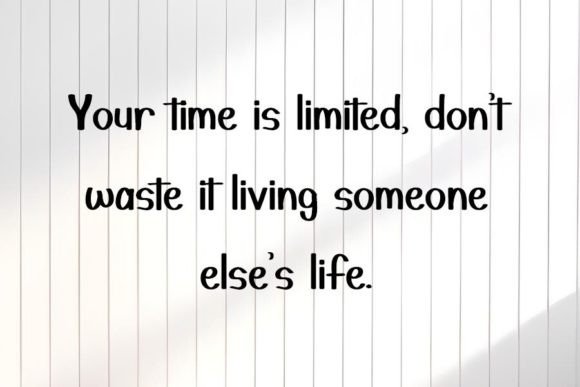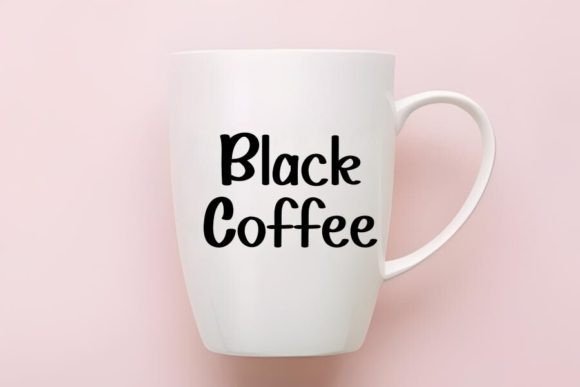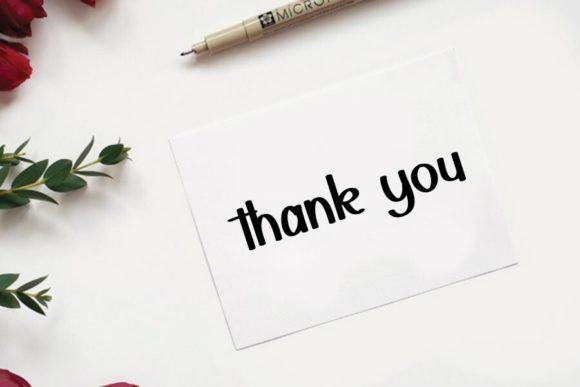
Introduction to Saharra Font
Saharra is a cute and friendly handwritten font.
Playful and a little bit quirky, this font is the perfect fit for all of your logos, branding, posters, and crafty DIY projects .
Key Features of Saharra Font
Why Choose Saharra Font?